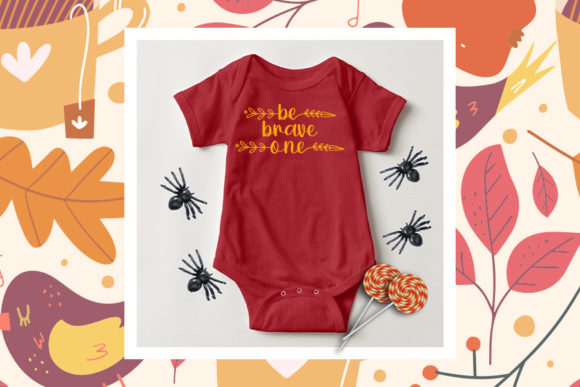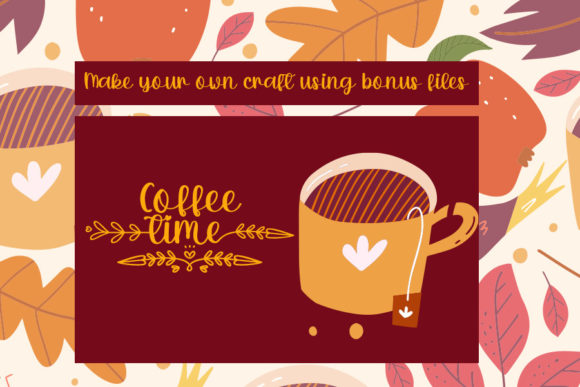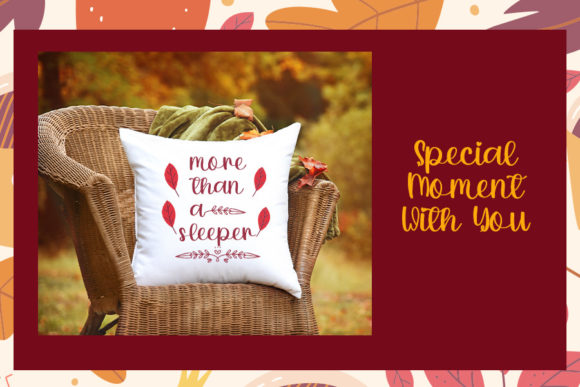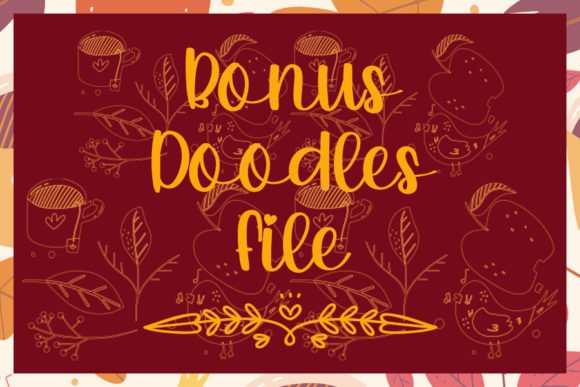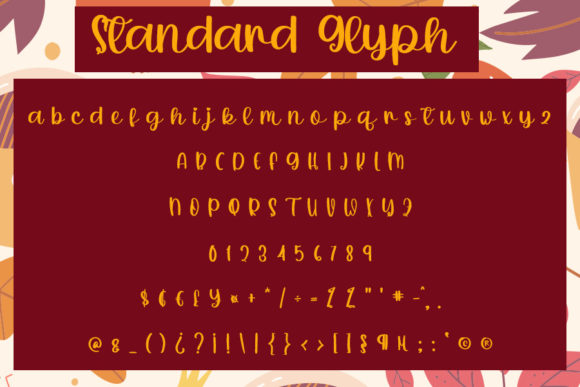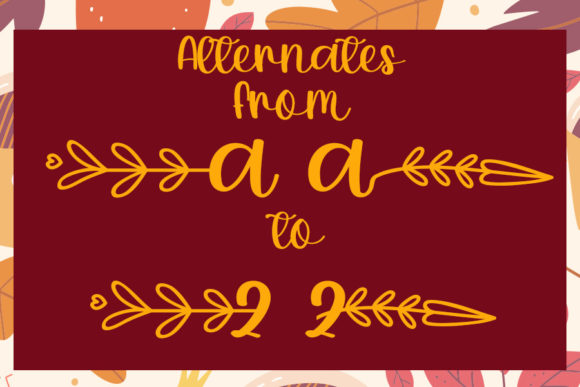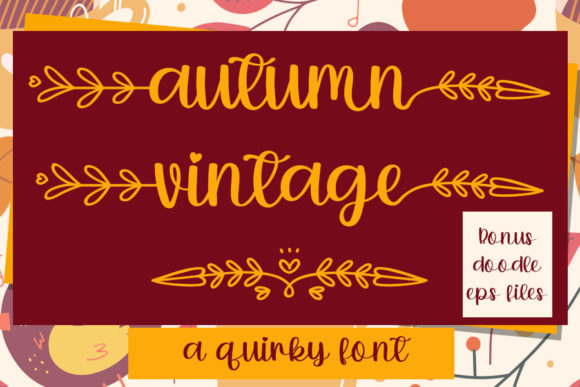
Introducing Autumn Vintage Font: Elevate Your Designs with Timeless Elegance
Are you a designer or crafter looking for a font that exudes sophistication and classic charm? Look no further than the Autumn Vintage Font. This elegant script font is inspired by timeless classic calligraphy, yet boasts a contemporary atmosphere and impeccable form that will elevate your designs to new heights.
The Inspiration Behind Autumn Vintage
Autumn Vintage Font is a masterful blend of traditional and modern elements. Its design is rooted in the rich heritage of classic calligraphy, with flowing lines and curves that evoke a sense of nostalgia and refinement. Yet, the font’s clean and crisp edges give it a fresh, contemporary feel that’s perfect for a wide range of design applications.
Key Features of Autumn Vintage Font
- PUA Encoding: Autumn Vintage Font is PUA (Private Use Area) encoded, which means you can access all of the glyphs and swashes with ease. This feature makes it simple to use the font in your designs, even if you’re not a seasoned typography expert.
- Elegant Script Style: The font’s elegant script style is perfect for creating sophisticated text-based designs, from wedding invitations and branding materials to packaging and advertising.
- Contemporary Atmosphere: Despite its classic inspiration, Autumn Vintage Font has a distinctly modern feel that’s perfect for designers who want to create fresh, eye-catching designs.
- Impeccable Form: The font’s impeccable form ensures that it looks great in a wide range of sizes and resolutions, from large display headings to small body text.
Uses for Autumn Vintage Font
Autumn Vintage Font is an incredibly versatile design tool that can be used in a wide range of applications, including:
- Wedding and Event Design: Create beautiful wedding invitations, save-the-dates, and other event materials with Autumn Vintage Font’s elegant script style.
- Branding and Packaging: Use the font to create sophisticated branding materials, such as logos, business cards, and packaging.
- Advertising and Marketing: Autumn Vintage Font is perfect for creating eye-catching advertising and marketing materials, from print ads to social media graphics.
- Stationery and Paper Crafts: Crafters and stationery enthusiasts will love using Autumn Vintage Font to create beautiful hand-lettered cards, journals, and other paper crafts.
Tips for Using Autumn Vintage Font
To get the most out of Autumn Vintage Font, try the following tips:
- Experiment with Swashes and Glyphs: Take advantage of the font’s PUA encoding to experiment with different swashes and glyphs. This will help you create unique and eye-catching designs.
- Mix and Match with Other Fonts: Autumn Vintage Font pairs beautifully with other fonts. Try combining it with a sans-serif font for a striking contrast.
- Use it for Headings and Titles: Autumn Vintage Font is perfect for creating beautiful headings and titles. Use it to add a touch of elegance to your designs.
Autumn Vintage Font is a stunning script font that offers a perfect blend of classic elegance and modern sophistication. With its PUA encoding, elegant script style, and impeccable form, it’s an ideal choice for designers and crafters who want to create beautiful, eye-catching designs. Whether you’re working on a wedding invitation, branding materials, or a paper craft project, Autumn Vintage Font is sure to elevate your designs to new heights.